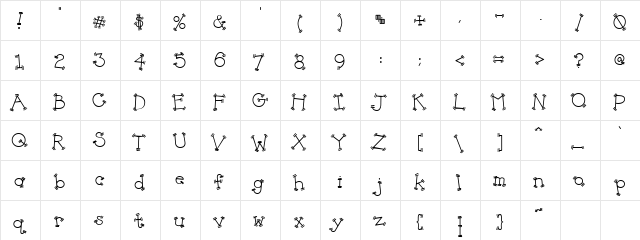
PC Double Tick Regular
Design Context for PC Double Tick Typeface
PC Double Tick is a composed and adaptable typeface that performs quietly and consistently across a wide range of design contexts.